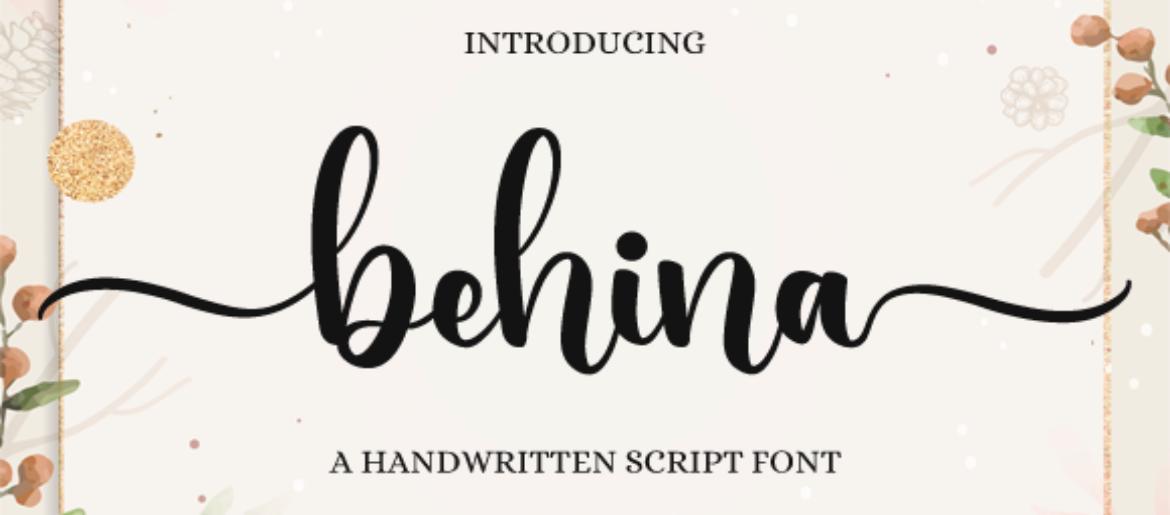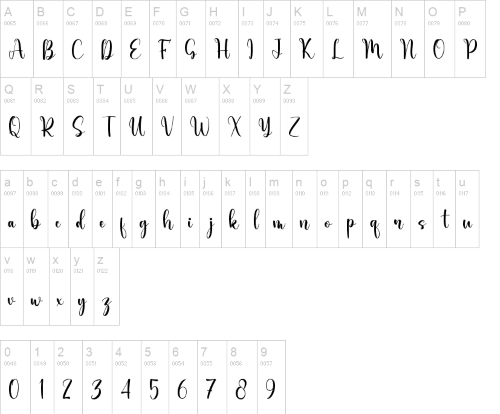
Behina Font
Behina Font is a charming and timeless handwritten typeface with smooth, elegant strokes that bring a warm, personal touch to any design. Perfect for standout logos, branding, invitations, and quotes, Behina is also fully PUA-encoded, giving you easy access to all its beautiful glyphs and swashes for effortless creative customization.